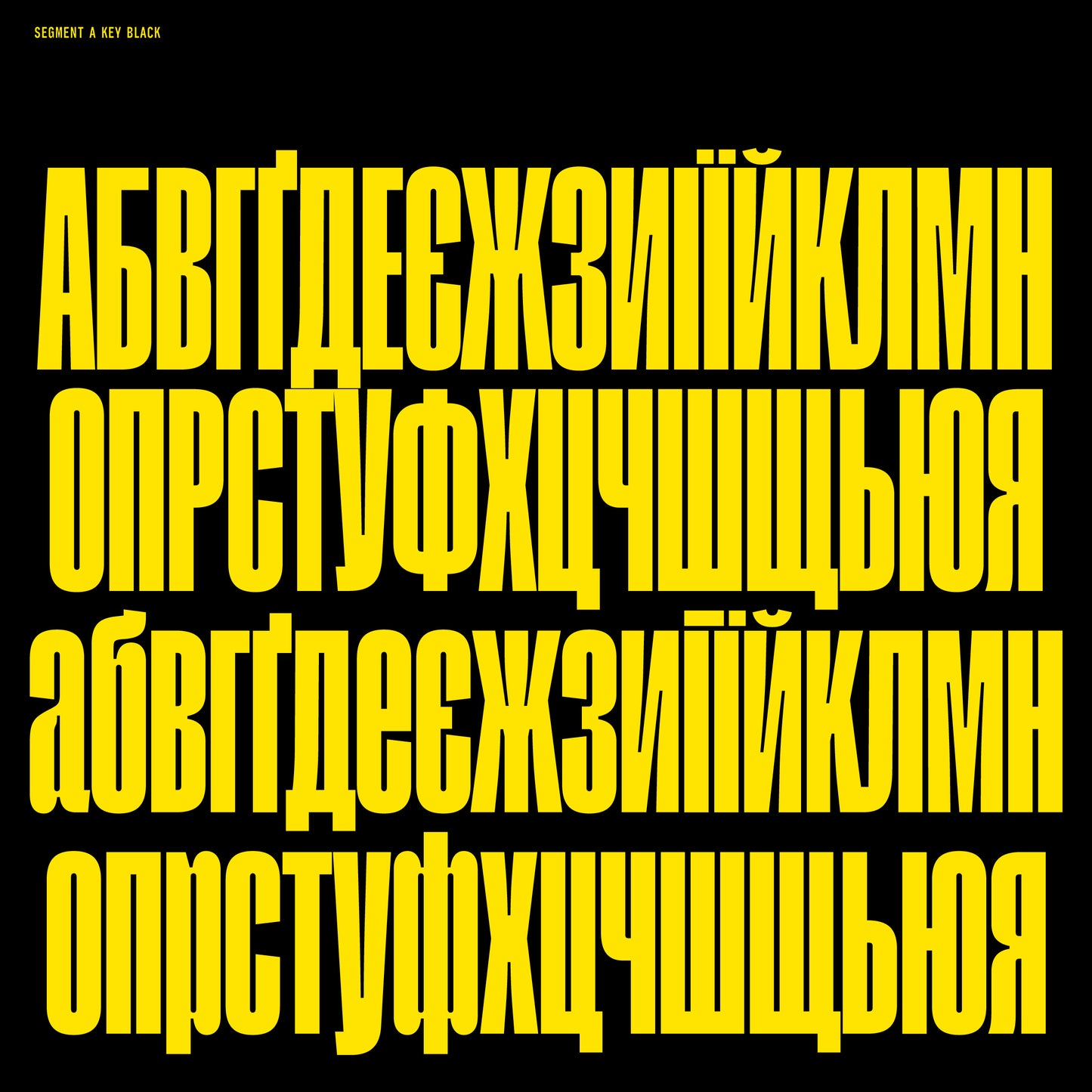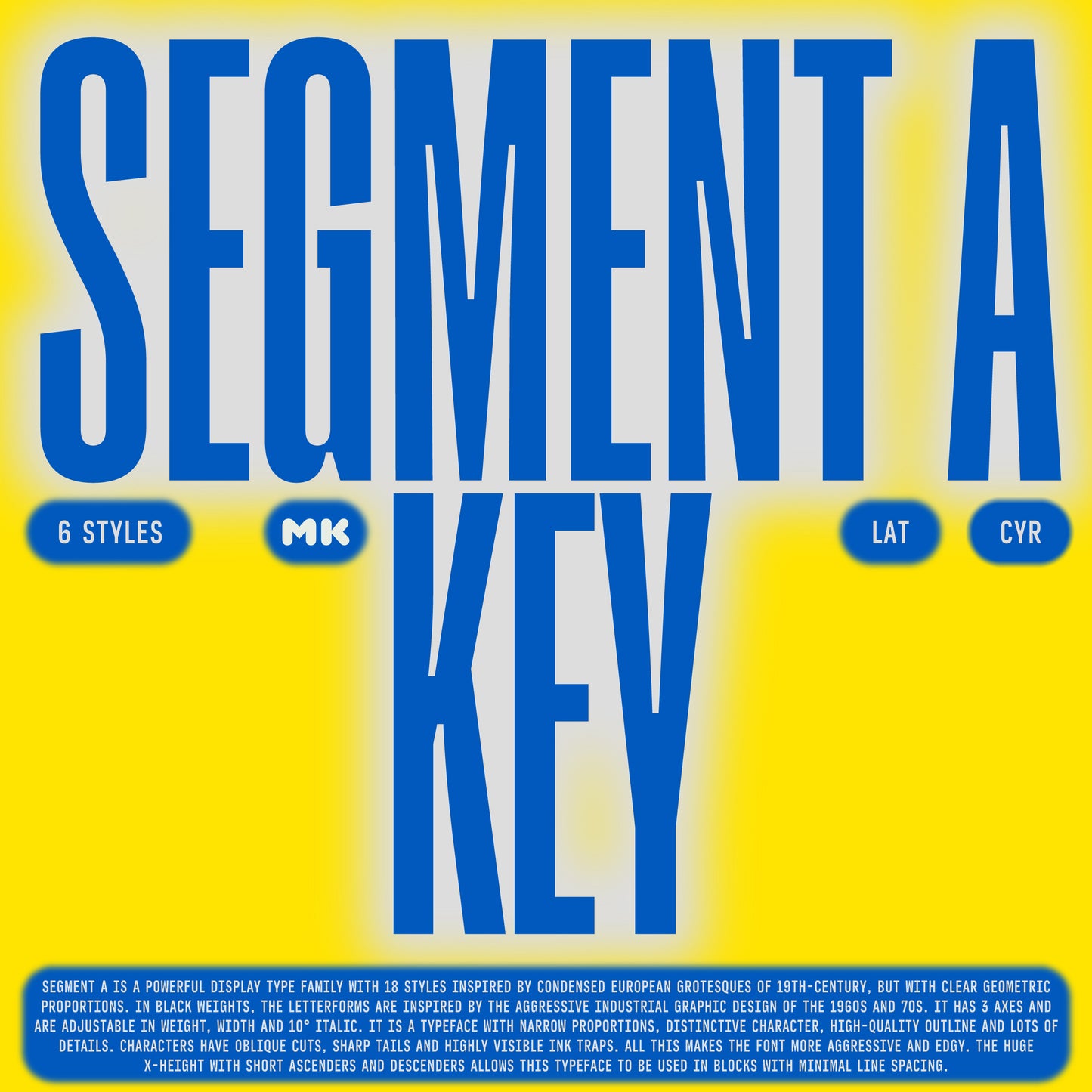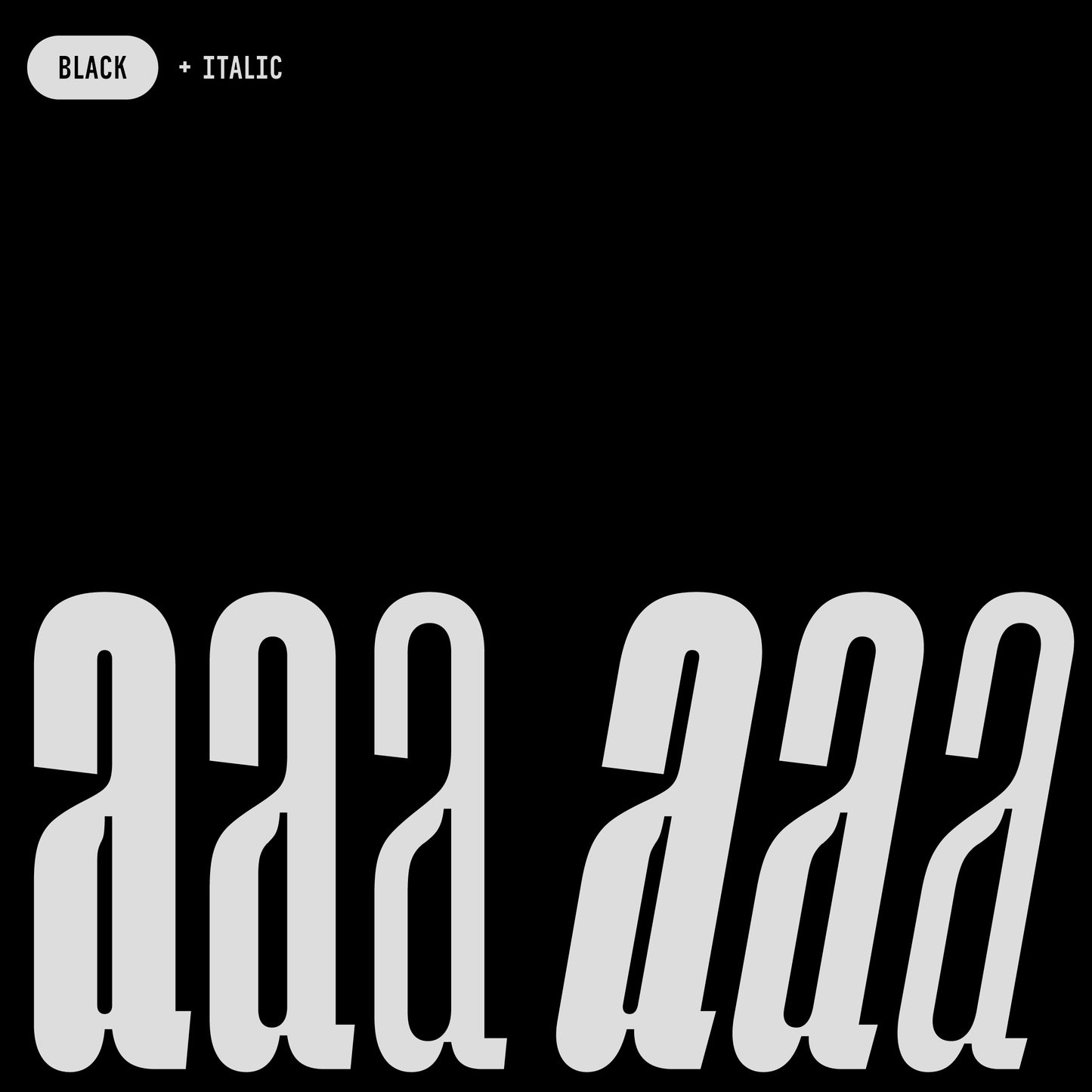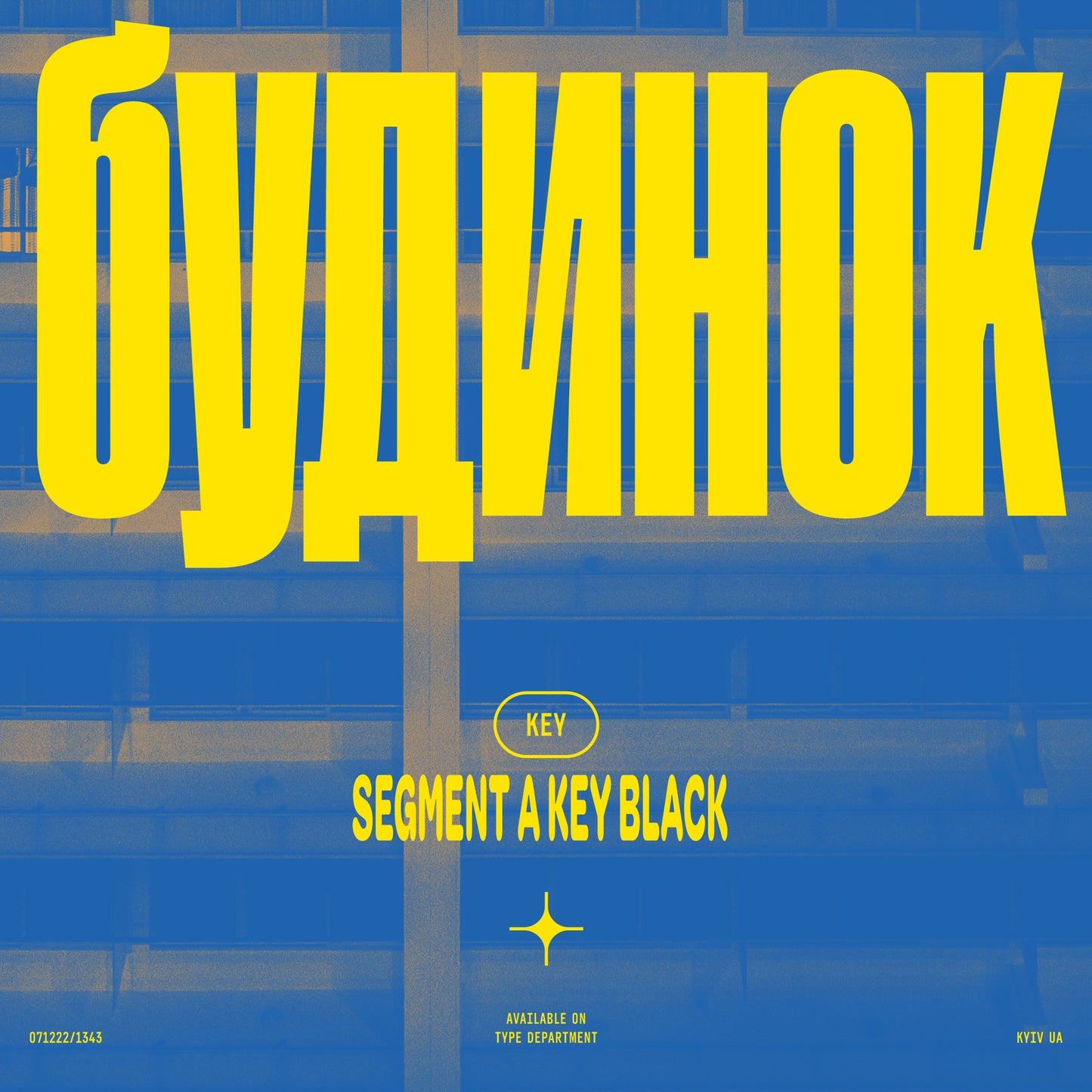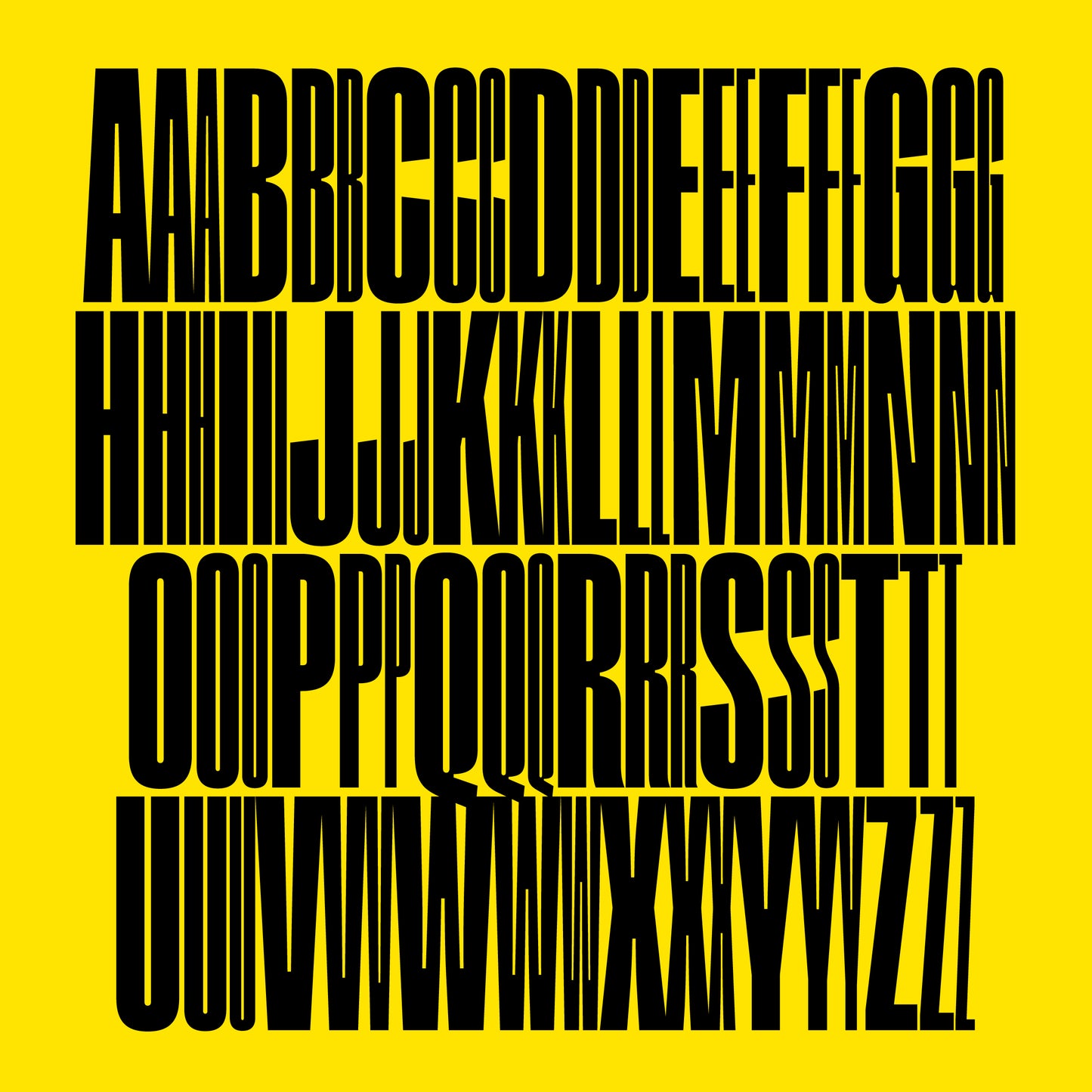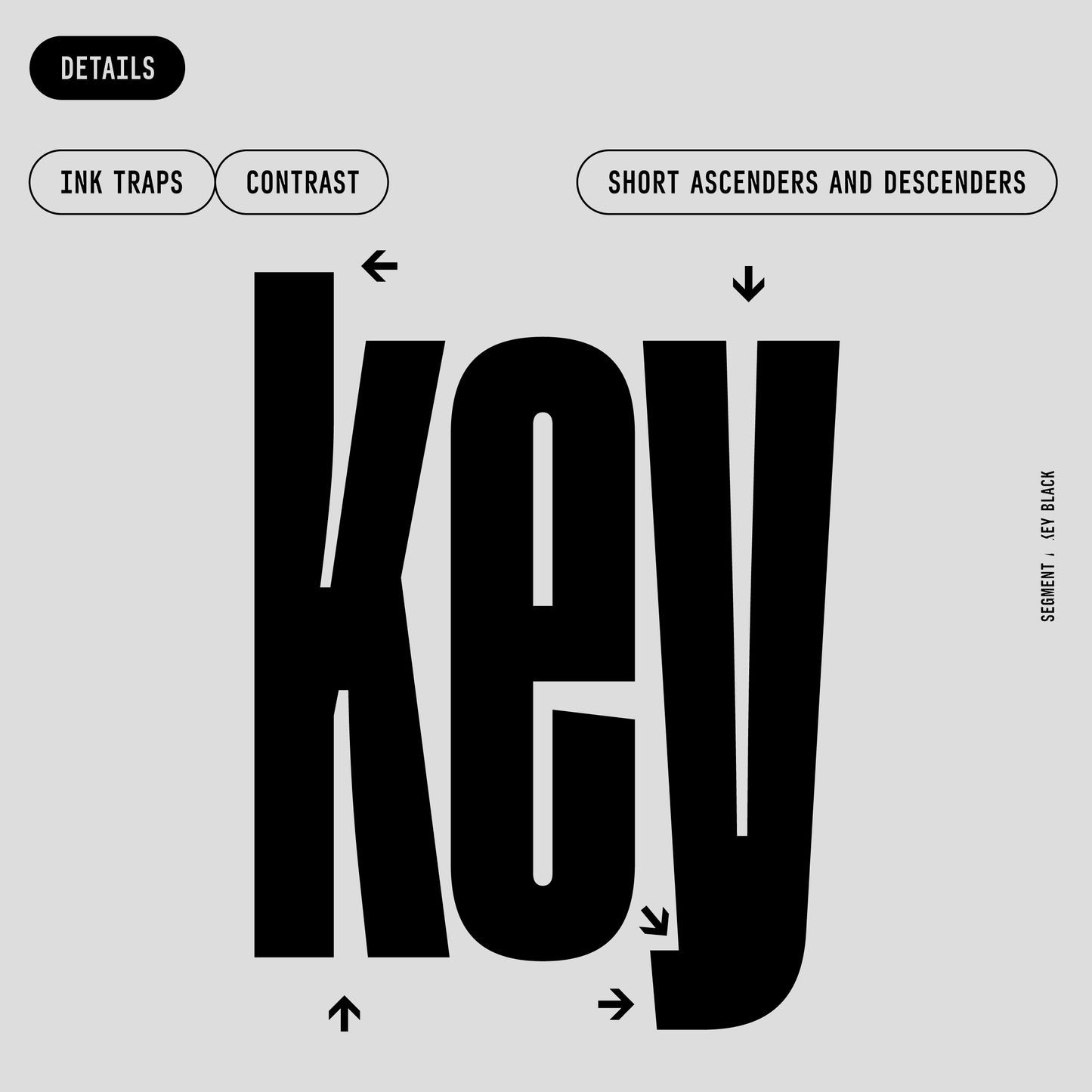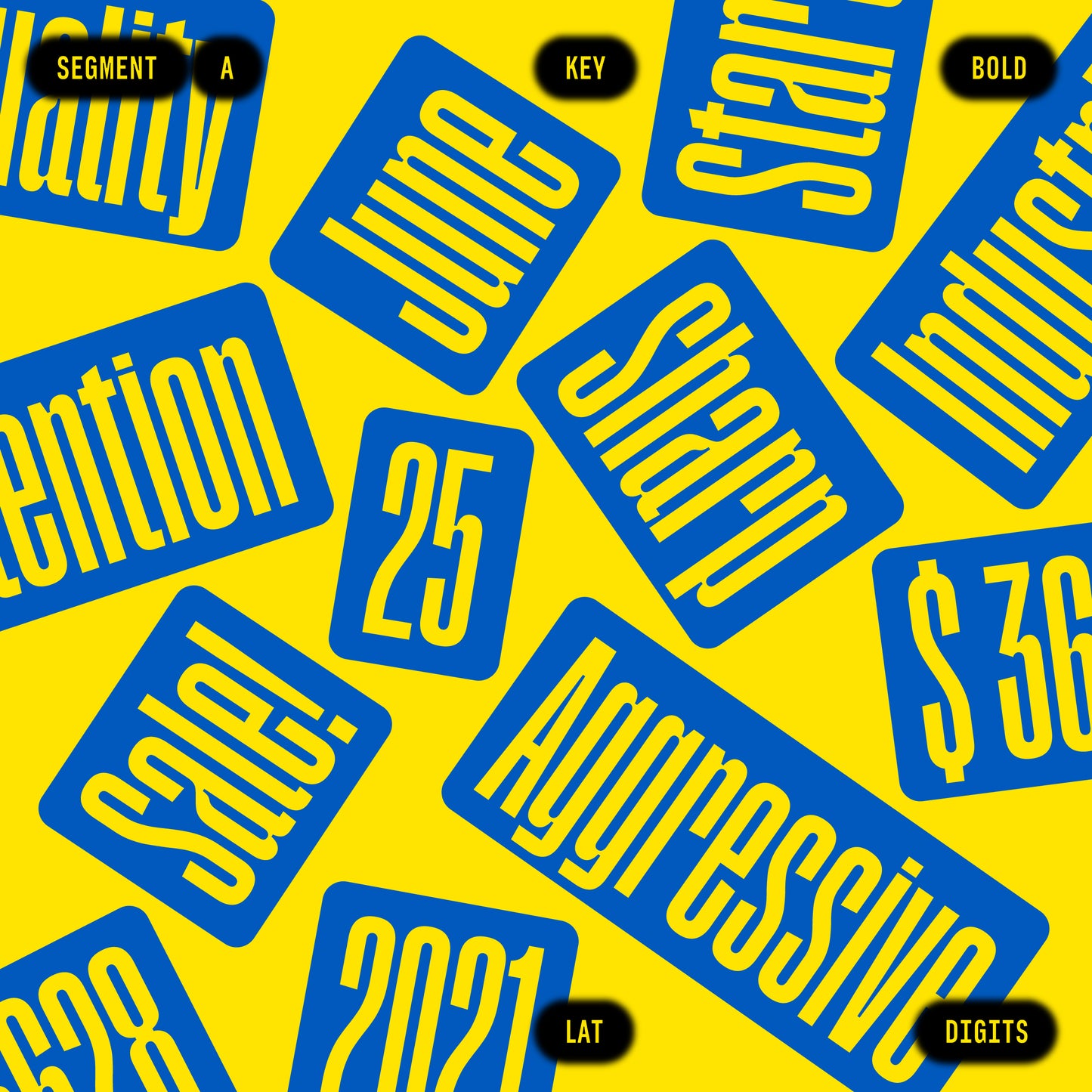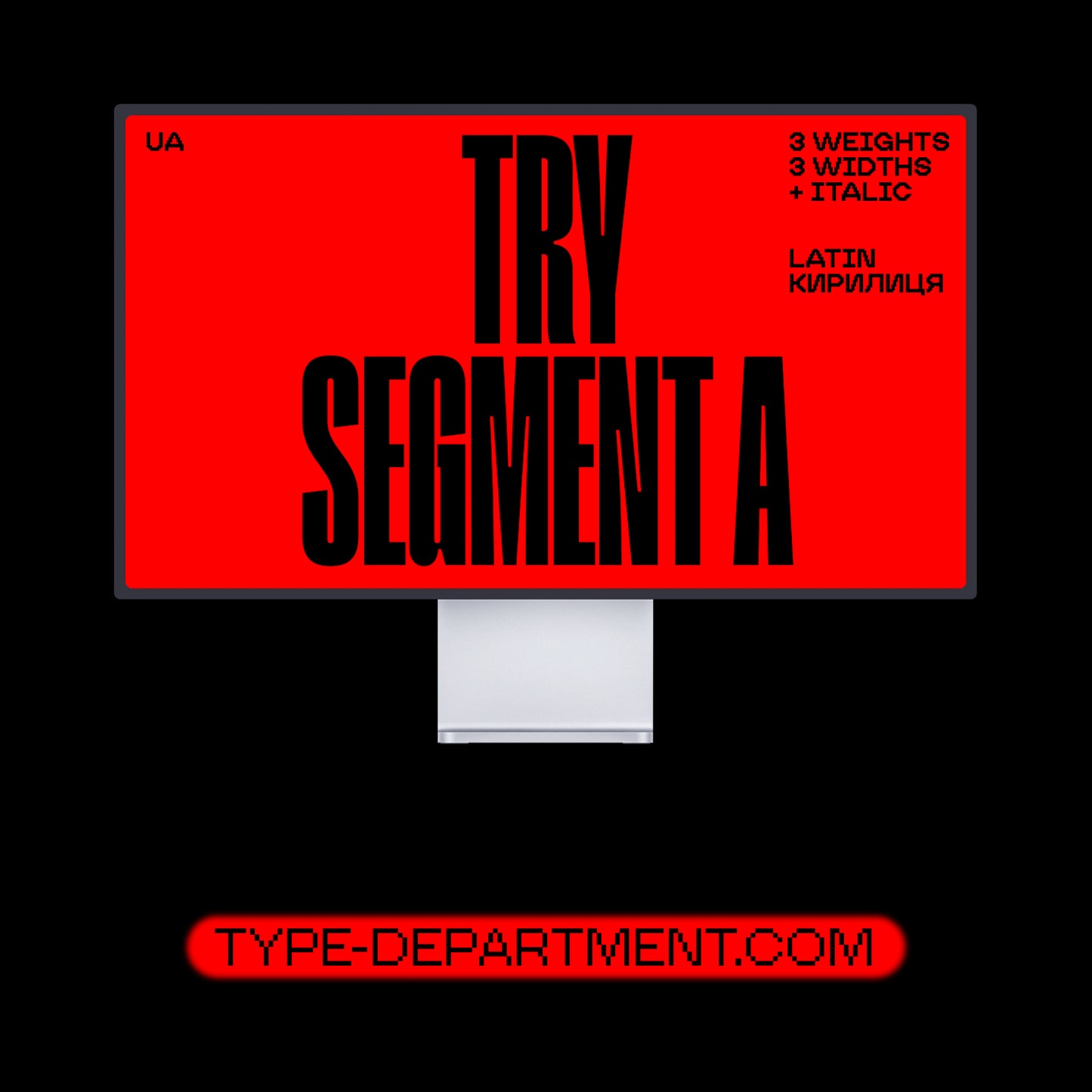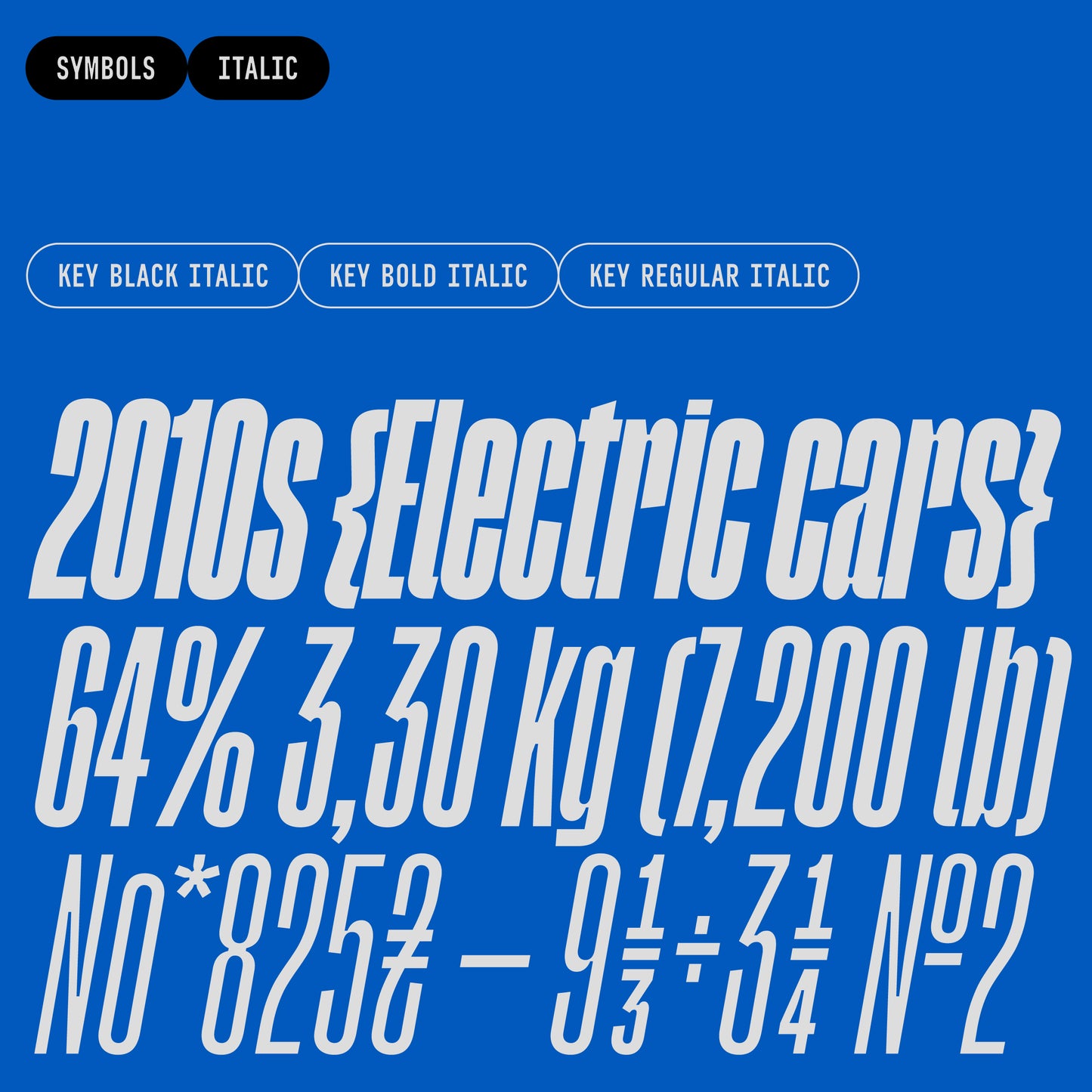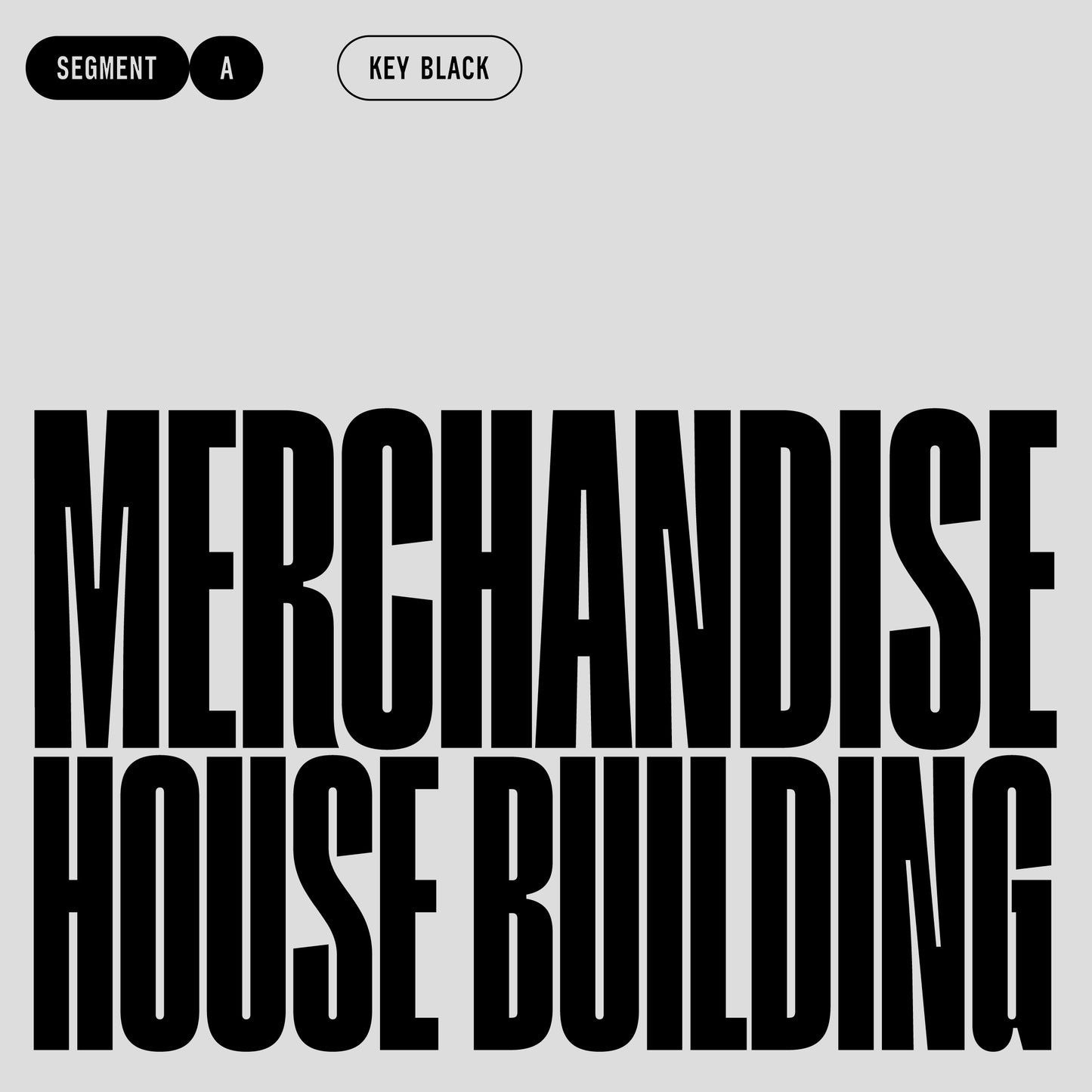
Segment A Key
Maksym Kobuzan
Segment A is a robust display-type family featuring 18 styles that draw inspiration from condensed European grotesques of the 19th century, infused with clear geometric proportions. In its Black weight, the letterforms reflect the bold, industrial graphic design ethos of the 1960s and 70s. Each style offers flexibility with 3 axes—adjustable in weight, width, and a 10˚ italic angle.
Defined by its narrow proportions and distinctive character, Segment A boasts high-quality outlines and meticulous detailing. The typeface includes oblique cuts, sharp tails, and prominent ink traps, enhancing its aggressive and edgy appearance. Its generous x-height, coupled with short ascenders and descenders, ensures excellent legibility even in densely packed text blocks.
Ideal for creating impactful headlines, branding materials, and signage, Segment A stands out with its bold, dynamic presence and versatile design possibilities
– Total glyphs: 631
– 18 styles (3 weights x 3 widths + italic)
– 3 variable axes
– Latin Extended
– Cyrillic Basic + Bulgarian letters
– Uppercase, lowercase
- Proportional numerals, tabular numerals, superiors, fractions
– Punctuations and symbols
– Arrows
– Stylistic alternates (ss01-ss05)
– Ligatures
– Case-sensitive forms